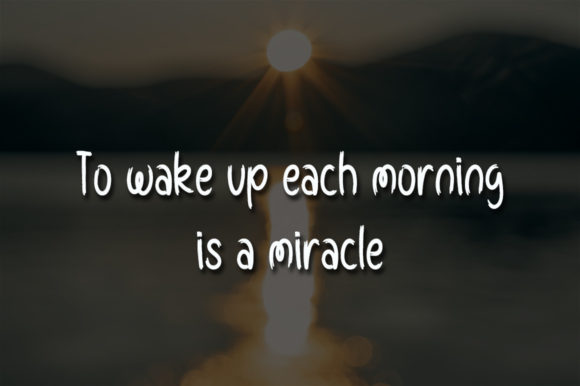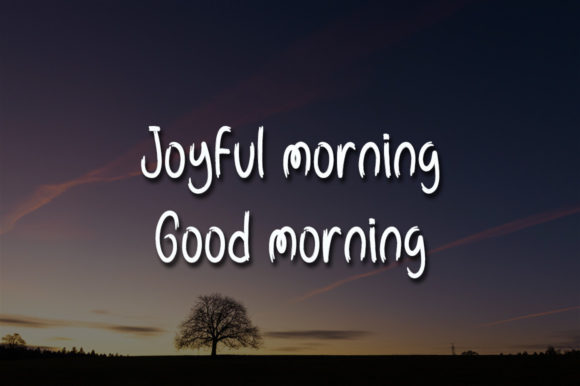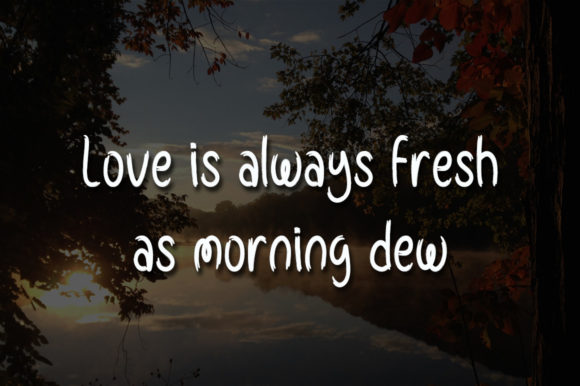
Introducing Good Morning Font: A Beautiful Handwritten Script for Casual Designs
Are you tired of using the same old fonts for your designs? Look no further! We’re excited to introduce Good Morning Font, a cool, simple, and brushed handwritten font that’s perfect for creating casual and relaxed designs. With its unique charm and versatility, Good Morning Font is sure to become a favorite among designers and crafters.
What Makes Good Morning Font Special?
Good Morning Font is a beautifully crafted handwritten script that’s designed to add a personal touch to your designs. Its simplicity and elegance make it perfect for a wide range of projects, from greeting cards and invitations to social media graphics and blog posts. The font’s brushed texture gives it a warm and organic feel, making it ideal for designs that require a more relaxed and casual vibe.
Key Features of Good Morning Font
- Handwritten script: Good Morning Font is a genuine handwritten script that’s full of character and personality.
- Simple and elegant: The font’s simplicity and elegance make it easy to read and versatile to use.
- Brushed texture: The font’s brushed texture gives it a warm and organic feel that’s perfect for casual designs.
- Endless variations: With Good Morning Font, you can create endless variations of designs, from simple and minimalist to complex and ornate.
Use Cases for Good Morning Font
Good Morning Font is perfect for a wide range of design projects, including:
- Greeting cards and invitations: Add a personal touch to your greeting cards and invitations with Good Morning Font.
- Social media graphics: Use Good Morning Font to create eye-catching social media graphics that stand out from the crowd.
- Blog posts and articles: Add a touch of elegance and sophistication to your blog posts and articles with Good Morning Font.
- Branding and packaging: Use Good Morning Font to create unique and memorable branding and packaging designs.
Tips for Using Good Morning Font
Here are some tips for using Good Morning Font effectively:
- Experiment with different colors: Good Morning Font looks great in a variety of colors, so don’t be afraid to experiment and find the perfect color for your design.
- Mix and match with other fonts: Good Morning Font pairs well with other fonts, so try mixing and matching it with different fonts to create a unique look.
- Use it for headlines and titles: Good Morning Font is perfect for headlines and titles, so use it to add a touch of elegance and sophistication to your designs.
Good Morning Font is a beautiful handwritten script that’s perfect for creating casual and relaxed designs. With its unique charm and versatility, it’s sure to become a favorite among designers and crafters. Whether you’re creating greeting cards, social media graphics, or blog posts, Good Morning Font is the perfect choice. So why wait? Download Good Morning Font today and start creating stunning designs that stand out from the crowd!
Have fun with this beautiful font and explore its endless variations. Get creative and make your designs shine with Good Morning Font!